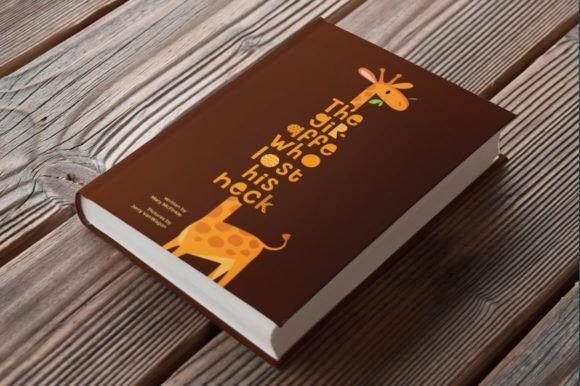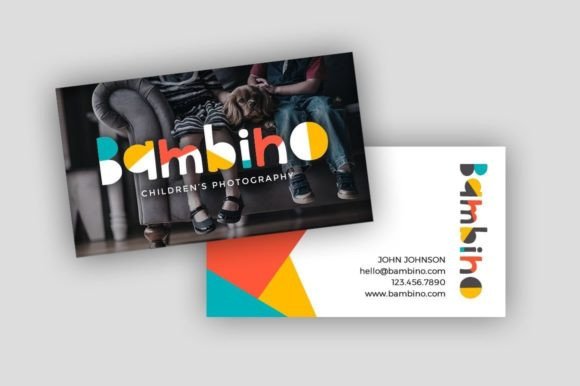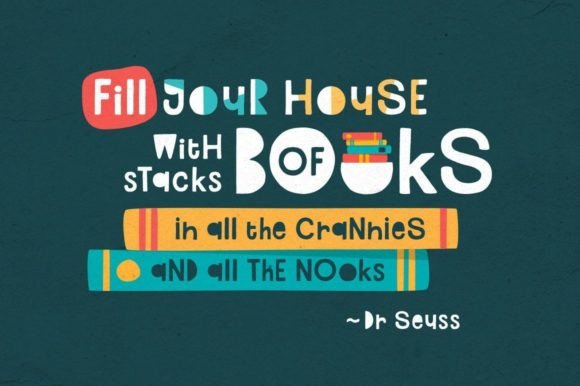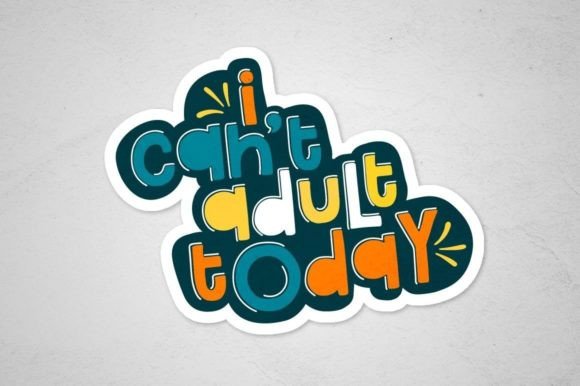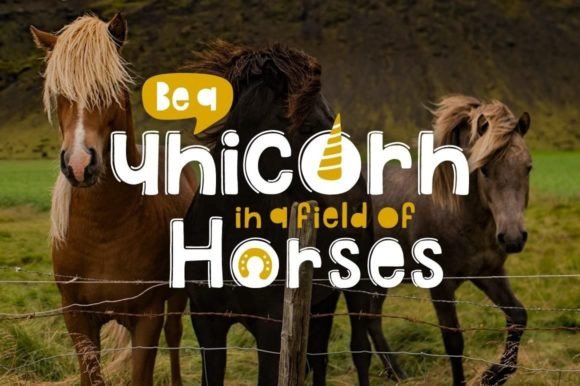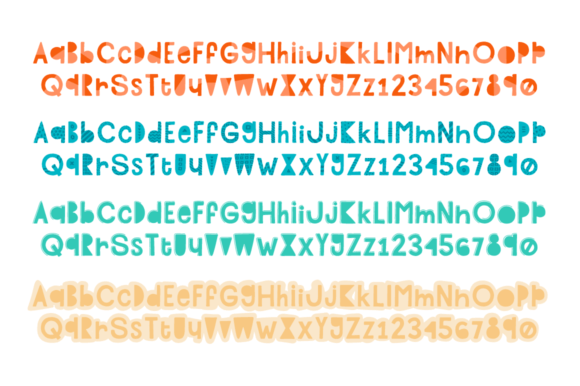
Introduction to Highflier Font Font
Fonts play a crucial role in design, and the Highflier Font font is a typeface that brings both character and versatility to any project. Whether you’re working on a branding project, a website, or a print design, the Highflier Font font offers a unique style that can elevate your work.
Say hello to Highflier.
A cheerful font that comes with 4 overlays: Slice, Scribble, Shadow, and Block Each will create its own unique look.
Key Features of Highflier Font Font
Why Choose Highflier Font Font?
The Highflier Font font is more than just a typeface – it’s a design tool that helps you communicate your message with style and clarity. Its unique character set and versatile design make it suitable for a wide range of applications, from elegant invitations to bold headlines.
With its carefully crafted letterforms and balanced proportions, the Highflier Font font ensures readability and visual appeal across all mediums.
What makes Highflier Font font special?
The Highflier Font font stands out with its unique design, exceptional readability, and versatility across various design applications.